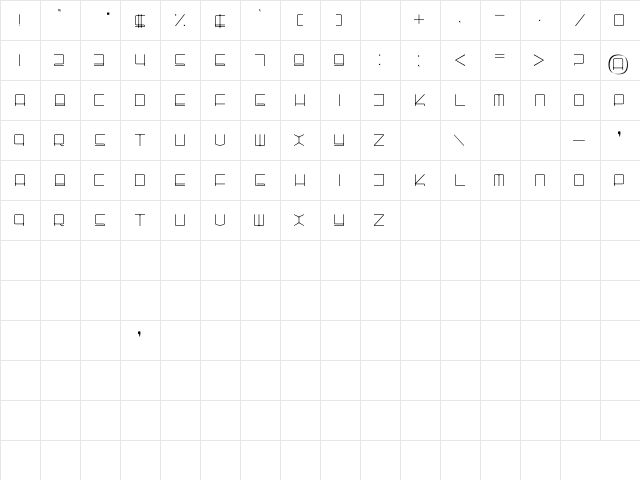
batho batho Font Preview
batho batho
batho batho Font Details
| Style | batho |
| Foundry | High-Logic |
| Designer | Paolo Batori |
Design Context for batho Typeface
batho is a composed and adaptable typeface that performs quietly and consistently across a wide range of design contexts.